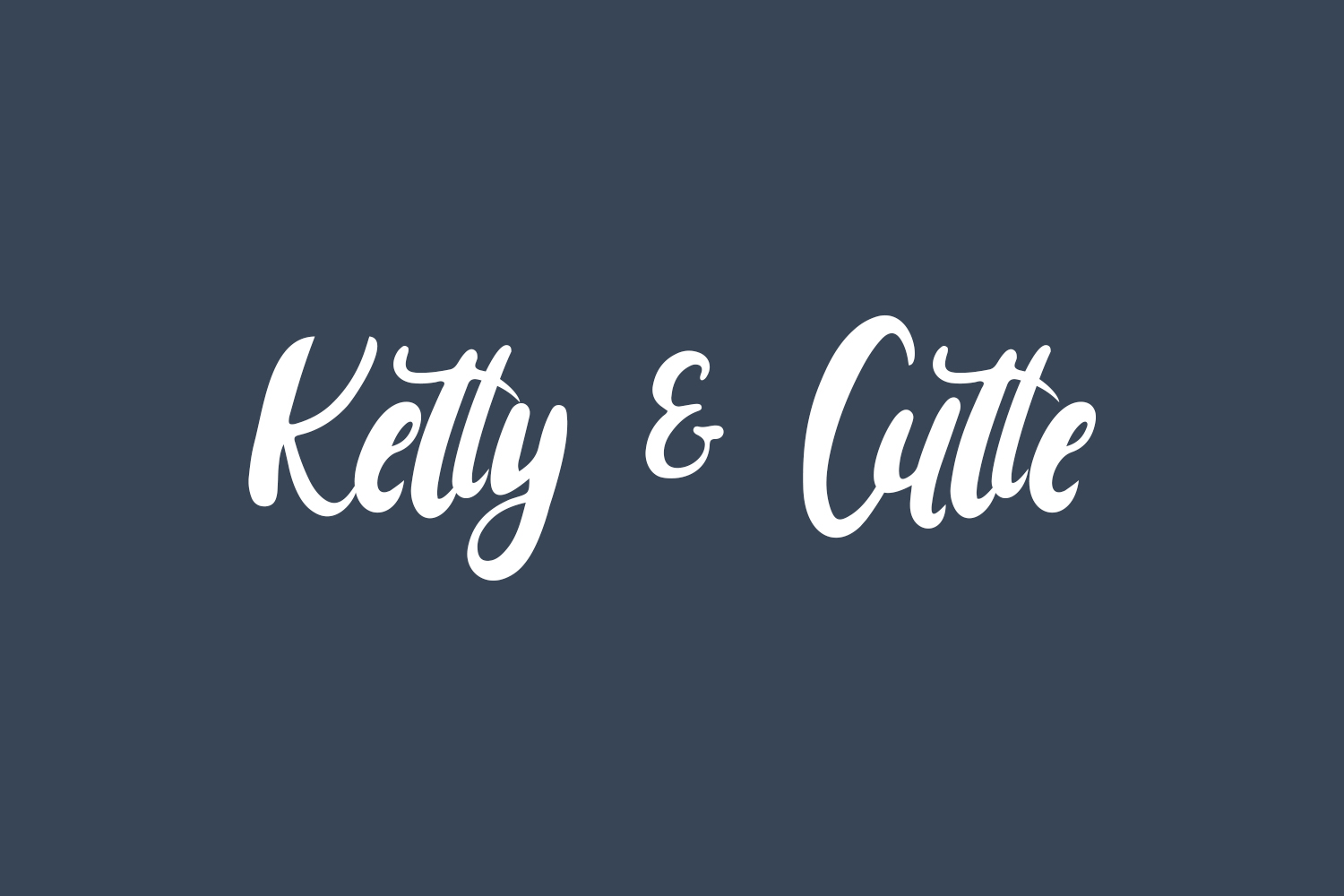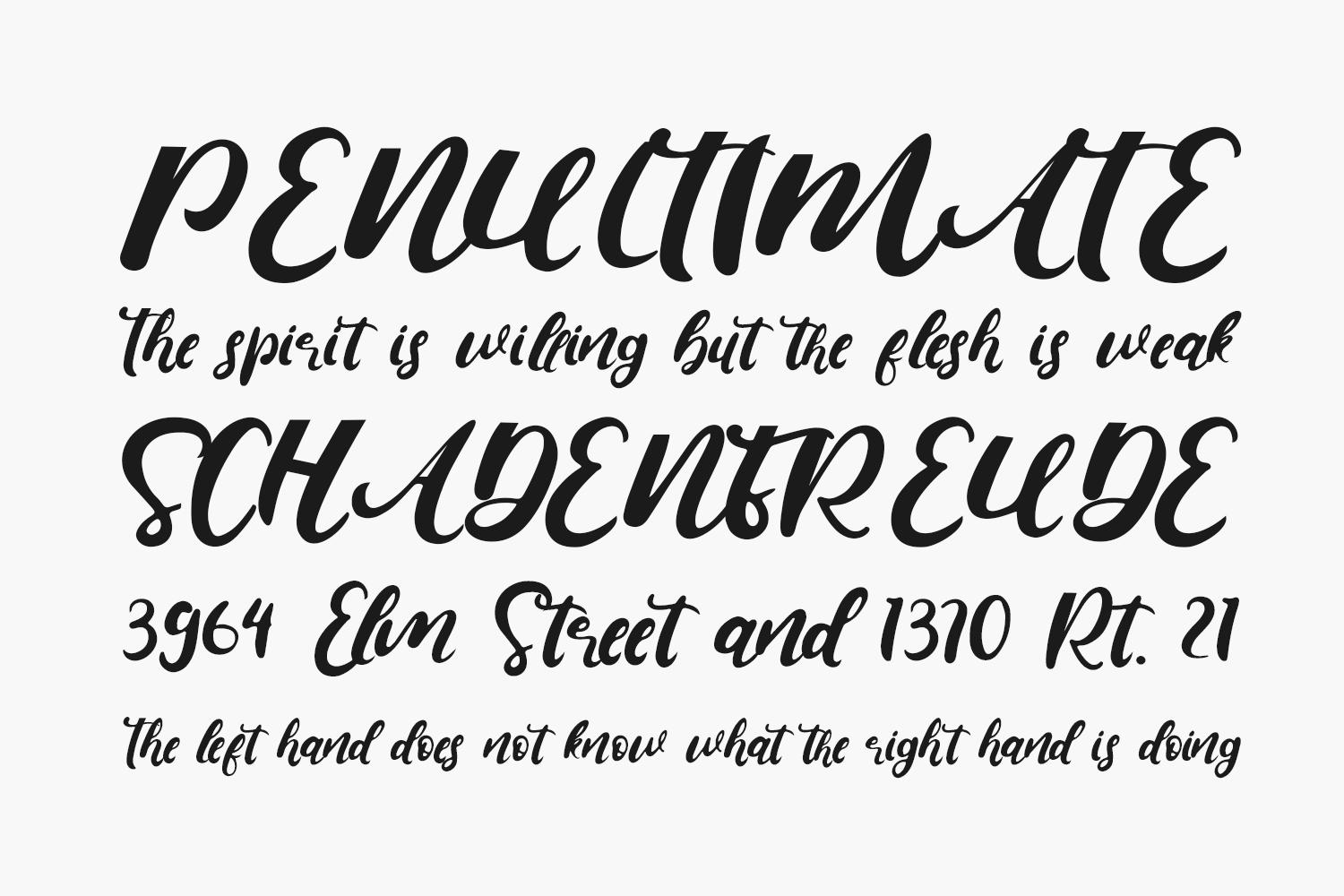
Ketty & Cutte Free Font is a lovely and timeless handwritten font. It is the best choice for creating eye catching logos, branding and quotes. Every letter has a unique and beautiful touch, which will make your design come alive.